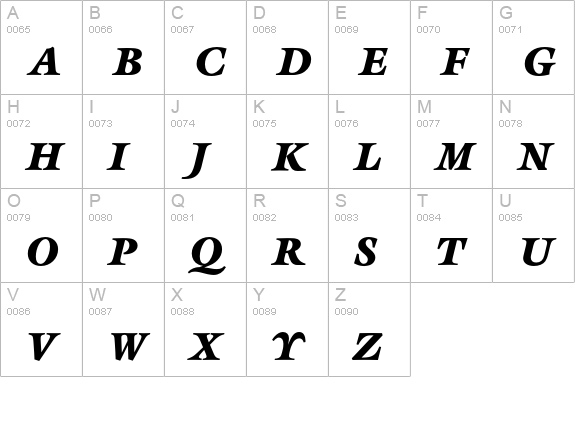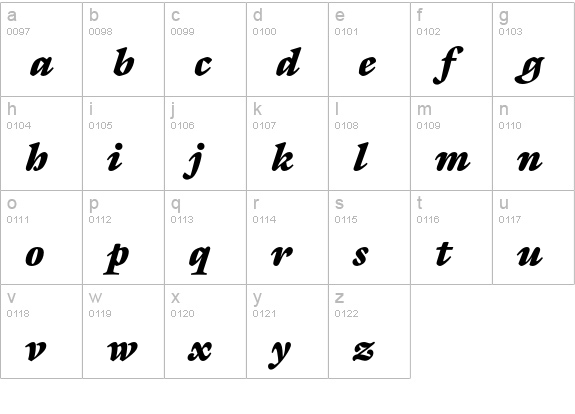
Introducing GalliardEF-UltraItalic, a captivating and visually striking font that effortlessly combines elegance, sophistication, and a touch of playfulness. This font is a true masterpiece, designed to make a bold statement in any project or design. With its unique and distinctive style, GalliardEF-UltraItalic is the perfect choice for those looking to add a touch of flair and creativity to their work. Its sleek and curvaceous lines exude a sense of dynamism, while its intricate details and subtle flourishes create an air of refinement and luxury. One of the most remarkable features of GalliardEF-UltraItalic is its versatility. Whether you're designing a logo, creating a poster, or crafting a wedding invitation, this font will effortlessly adapt to any context, adding a touch of elegance and class. But what truly sets GalliardEF-UltraItalic apart is the fact that it's free. That's right, this remarkable font is freely available to download at FontsMarket.com. You can now experience the sheer beauty and versatility of GalliardEF-UltraItalic without any cost or limitations. So, whether you're a professional designer, a student, or simply someone with a passion for typography, don't miss out on the opportunity to enhance your projects with the stunning GalliardEF-UltraItalic font. Download it for free today at FontsMarket.com and unlock a world of creative possibilities.